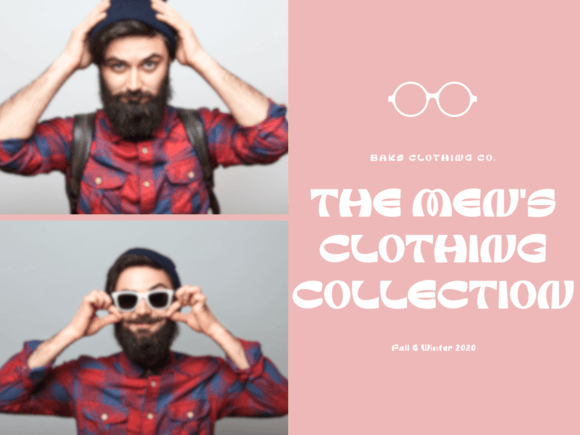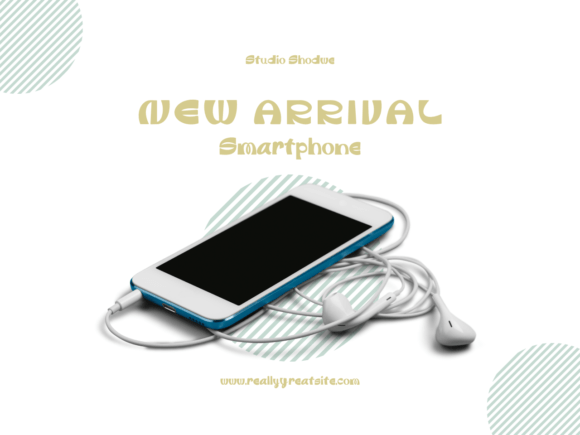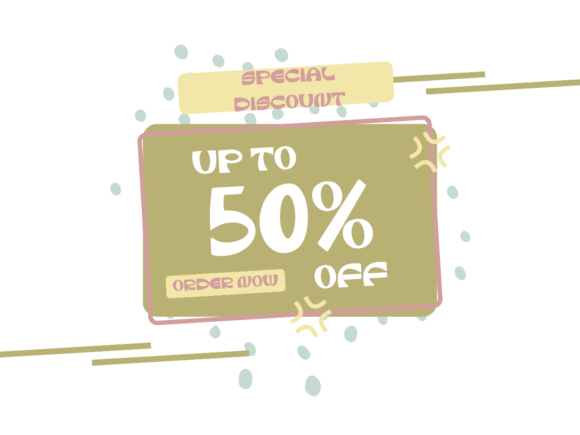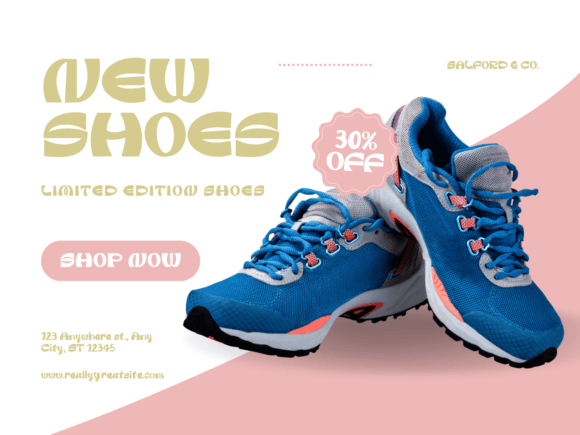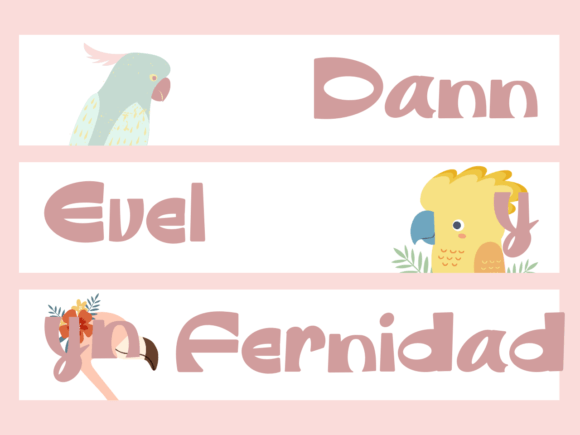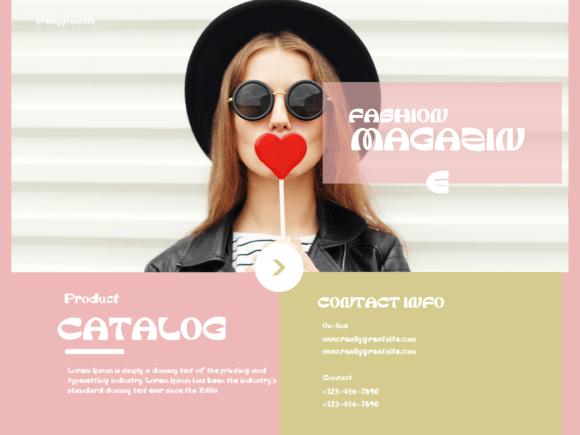
Discover the Elegance of Chandra Font: Elevate Your Designs with Versatility and Style
In the realm of typography, few fonts manage to capture the essence of elegance and boldness simultaneously. However, Chandra Font stands out as a remarkable exception. This exquisite serif font is not just a typeface; it’s an invitation to explore the boundaries of creativity and sophistication. Whether you’re a designer crafting beautiful stationery, a crafter making unique wedding invitations, or a social media enthusiast aiming to make your posts stand out, Chandra Font is your perfect companion.
The Essence of Chandra Font
Chandra Font is an elegant and bold serif typeface that exudes a sense of luxury and refinement. Its design is meticulously crafted to offer an incredibly versatile style, making it suitable for a wide array of projects. From the classic charm of wedding invitations to the modern appeal of digital media, Chandra Font brings a touch of sophistication that can elevate any design.
One of the standout features of Chandra Font is its versatility. This font is not limited to traditional mediums; it’s designed to shine across various platforms and applications. Here are just a few ways you can utilize Chandra Font:
- Wedding Invitations: Create stunning wedding invitations that set the tone for an elegant and memorable event. The bold yet refined characters of Chandra Font make it perfect for conveying the joy and sophistication of a wedding.
- Stationery Art: Add a personal touch to your stationery with Chandra Font. Its elegant lines and classic feel make it ideal for letters, cards, and other paper crafts.
- Social Media Posts: Stand out on social media with eye-catching posts designed using Chandra Font. Whether you’re sharing quotes, announcements, or stories, this font will give your content a professional and stylish look.
- Digital and Print Media: Beyond its use in personal projects, Chandra Font can also be employed in professional settings, such as in magazines, brochures, and website content, to convey a sense of luxury and authority.
Why Choose Chandra Font?
With so many fonts available, why should Chandra Font be your go-to choice? Here are a few compelling reasons:
- Elegance: Chandra Font embodies elegance, making it perfect for designs that require a touch of sophistication.
- Boldness: Despite its elegant nature, Chandra Font is bold and impactful, ensuring your message is always noticed.
- Versatility: Its versatility means you can use it across different projects and mediums, making it a valuable addition to your font collection.
- Easy to Read: The clarity of Chandra Font ensures that your message is conveyed effectively, whether in print or digital formats.
Tips for Using Chandra Font
To make the most of Chandra Font, consider the following tips:
- Pair with Complementary Fonts: While Chandra Font is stunning on its own, pairing it with complementary fonts can add depth and interest to your designs.
- Experiment with Colors: Don’t be afraid to experiment with different colors. Chandra Font looks great in metallic colors, pastels, and bold hues.
- Play with Sizes: Utilize the boldness of Chandra Font by varying the size of your text. This can create visual hierarchy and draw attention to key messages.
Chandra Font is more than just a typeface; it’s a design statement. Its elegant and bold serif style offers a world of creative possibilities, from crafting beautiful wedding invitations to creating stunning social media posts. With its versatility, readability, and sophisticated appeal, Chandra Font is an invaluable resource for designers and crafters alike. So, fall in love with Chandra Font and let it guide you in creating designs that are as beautiful as they are impactful.
Embrace the elegance and boldness of Chandra Font in your next project and discover how this incredible typeface can transform your designs into works of art.